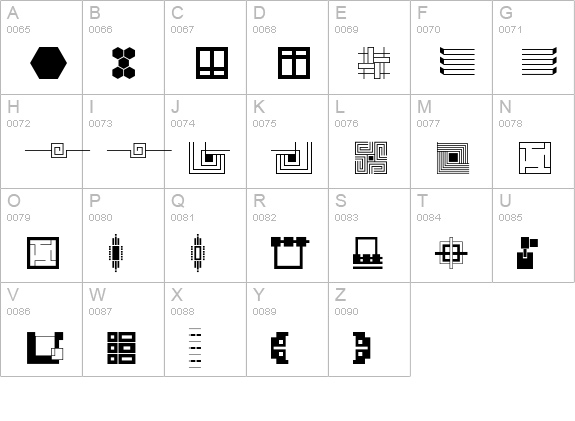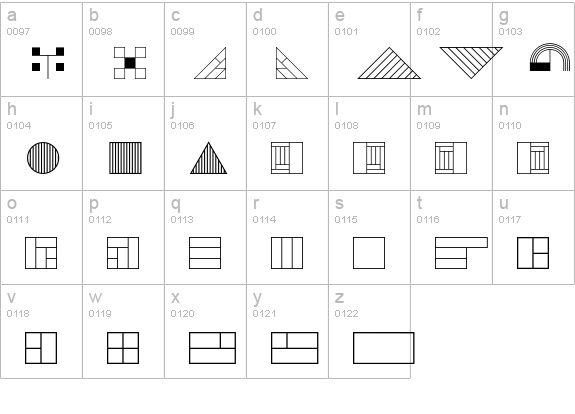
P22Eaglerock-Extras Font Details
P22Eaglerock-Extras is a captivating and versatile font that seamlessly combines elegance and playfulness. With its unique and intricate design elements, this font is a true standout in any project or design. Featuring a wide range of decorative icons, borders, frames, and ornaments, P22Eaglerock-Extras offers endless possibilities to enhance your creative endeavors. Whether you are designing invitations, logos, posters, or any other visual materials, this font will add a touch of sophistication and sophistication to your work. What sets P22Eaglerock-Extras apart is not just its stunning visual appeal, but also the fact that it is free and readily available to download at FontsMarket.com. This means that you can effortlessly access and utilize this remarkable font without any financial constraints. With P22Eaglerock-Extras, you can effortlessly elevate your design projects to new heights, capturing attention and leaving a lasting impression. So, why wait? Take advantage of this incredible opportunity and download P22Eaglerock-Extras today from FontsMarket.com. Unleash your creativity and let this remarkable font be the catalyst for your next design masterpiece.